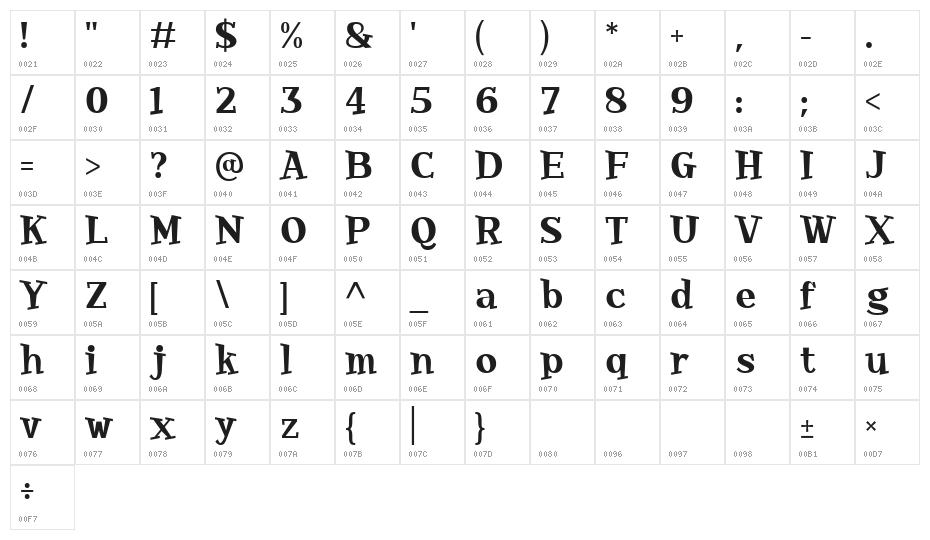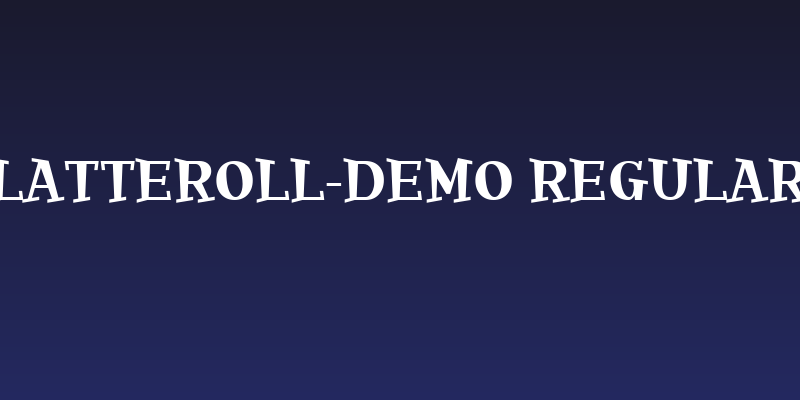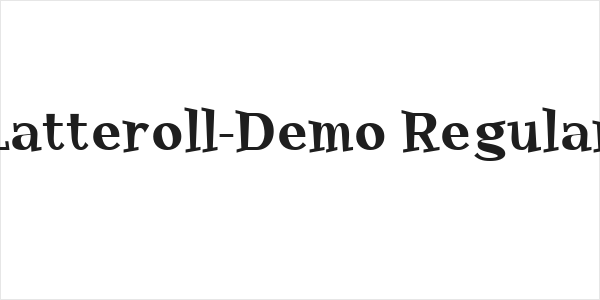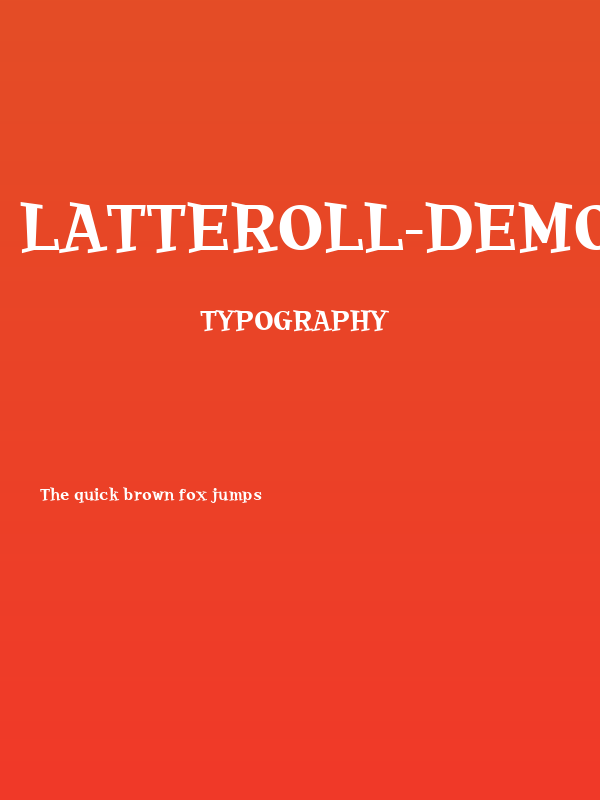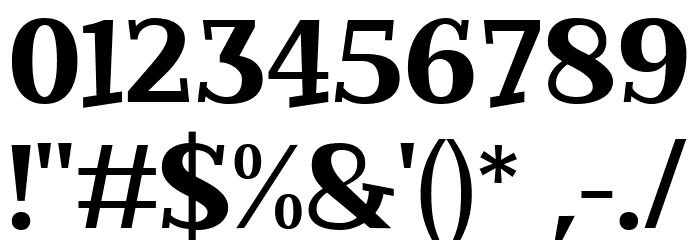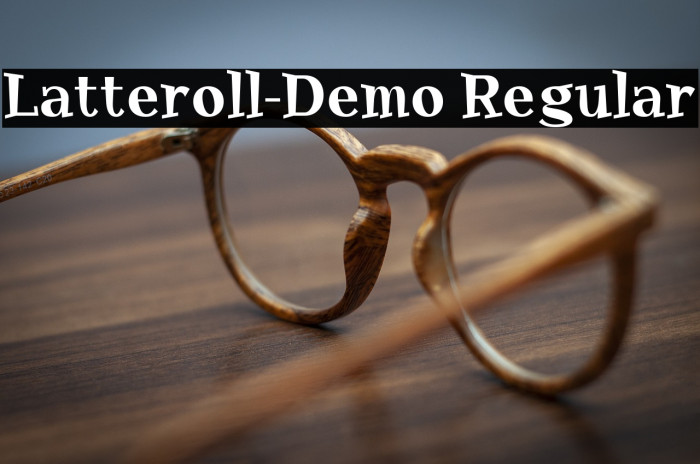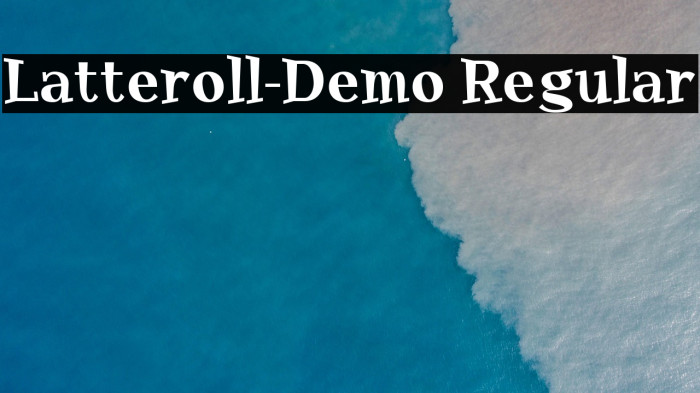
Latteroll-Demo Regular Font
Latteroll-Demo Regular Description
This font features a playful and dynamic style with a slightly irregular baseline, giving it a whimsical and lively appearance. The characters are bold and have a strong presence, making them suitable for attention-grabbing designs. The uppercase letters exhibit a slight slant, adding to the font's energetic feel. The lowercase letters maintain a consistent style with rounded edges and a friendly demeanor. The numerals are bold and clear, ensuring readability. Special characters are well-integrated, maintaining the overall playful aesthetic.
| Overall Style | Playful |
| Use Case | Headlines, Logos |
| Proposed Projects | Ideal for children's books, playful branding, posters, and creative advertising. |